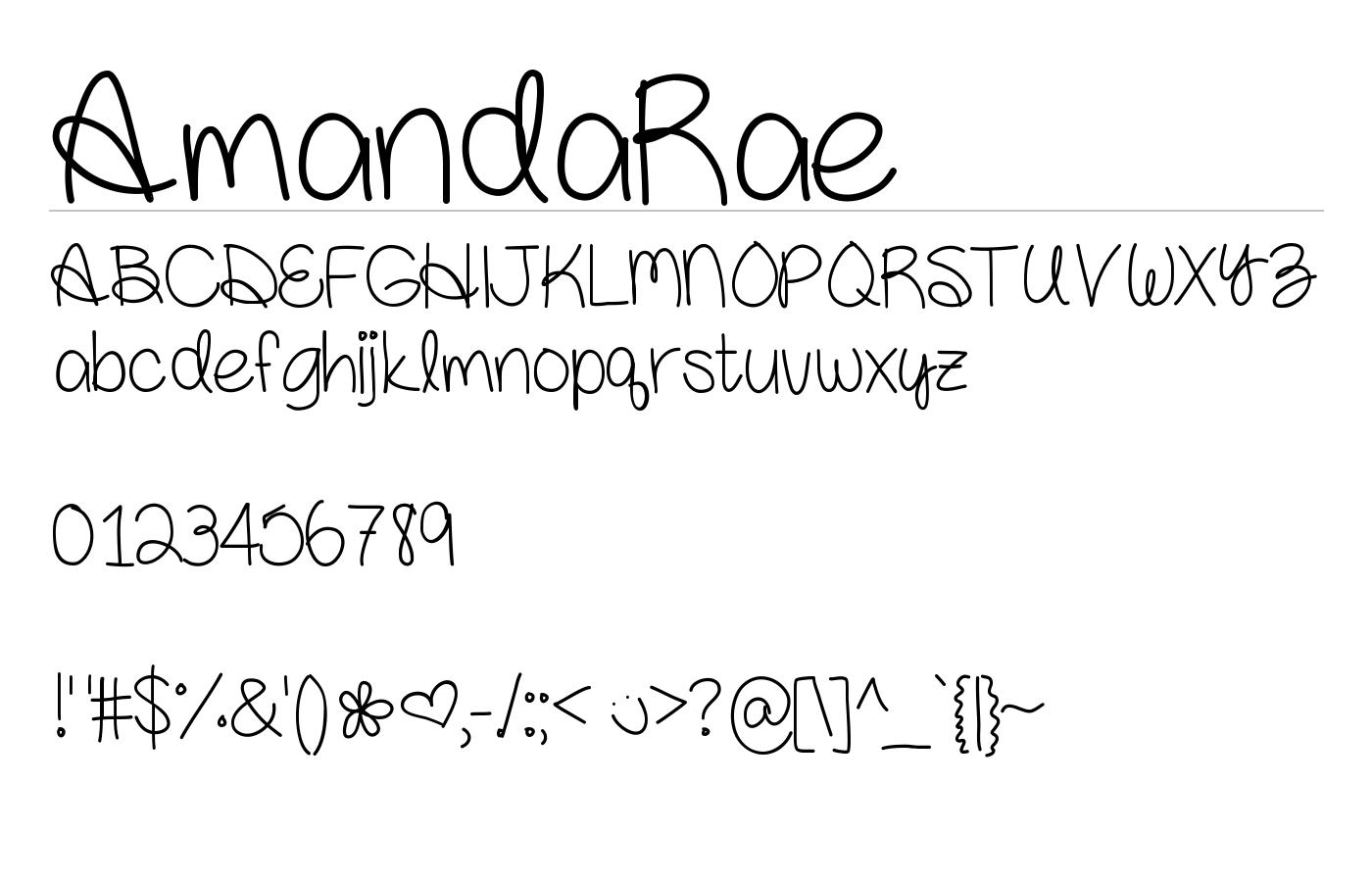
AmandaRae is a playful and casual handwritten font with a light weight and airy spacing that gives it a friendly, approachable feel. Its rounded, somewhat irregular letterforms and whimsical details make it perfect for informal designs, such as children’s products, greeting cards, or personal branding. This font works best in creative and fun contexts where a relaxed, handmade look is desired.
AmandaRae Font
About AmandaRae Font